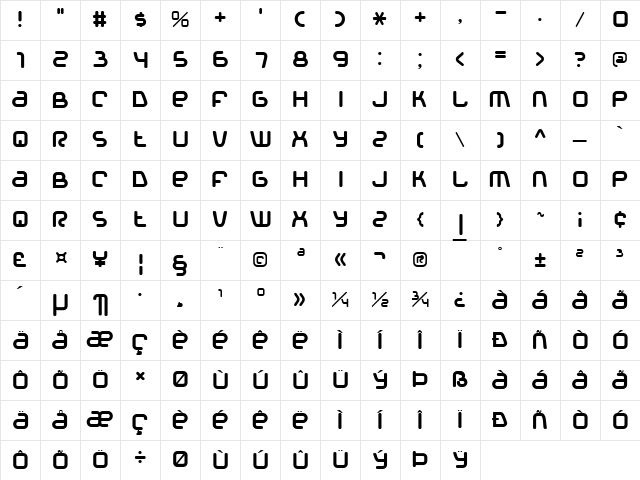
Glamorous BV Regular Free Font
Glamorous BV Regular
Design Context for Glamorous BV
Glamorous BV is a composed and adaptable typeface that performs quietly and consistently across a wide range of design contexts.